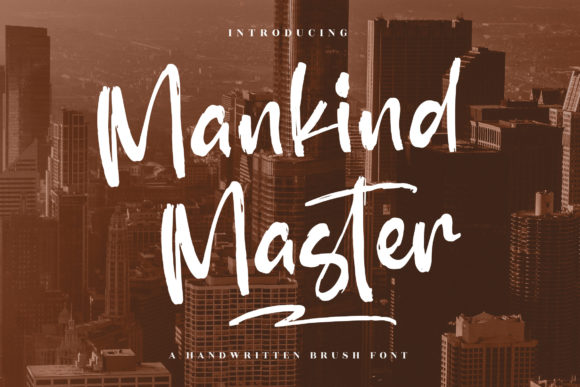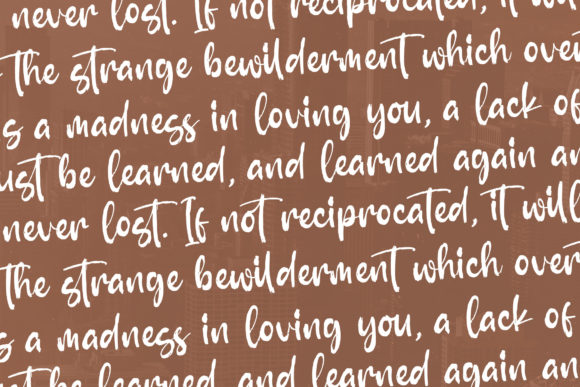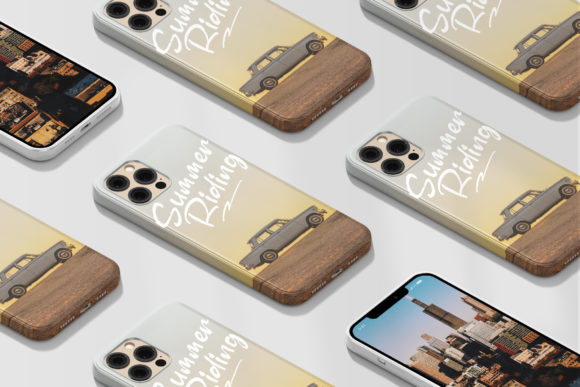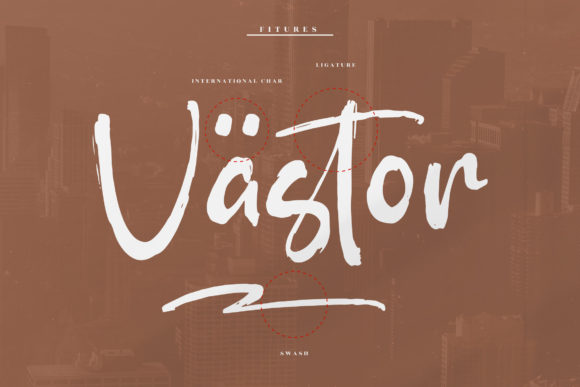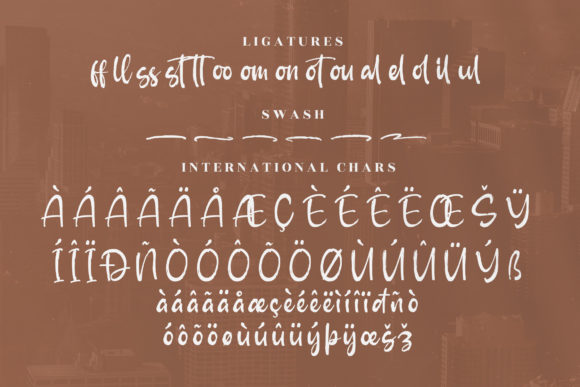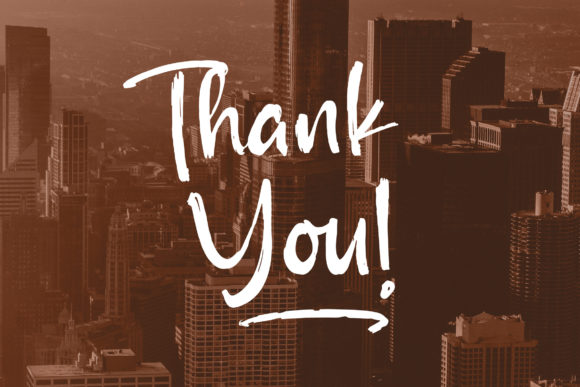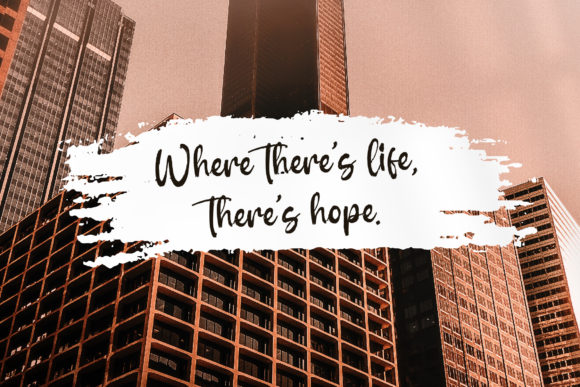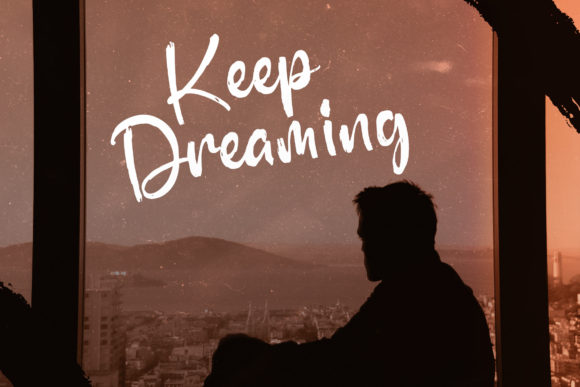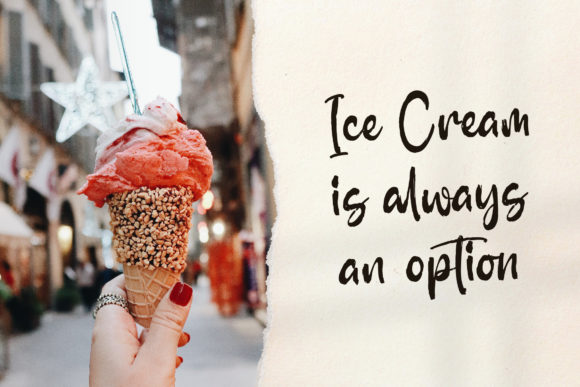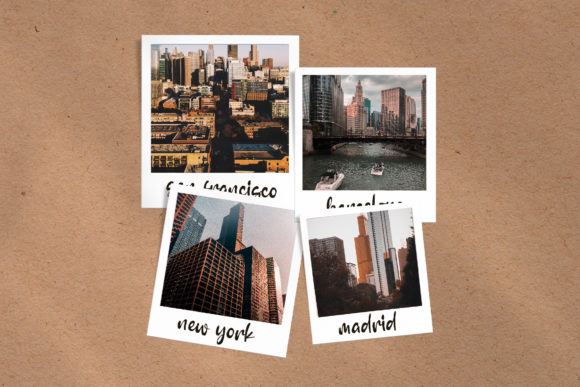
Mankind Master Font
About Mankind Master Font
Mankind Master is a thin lettered and graceful script font. It will add a luxury spark to any design project that you wish to create! This font is PUA encoded which means you can access all of the amazing glyphs and ligatures with ease!